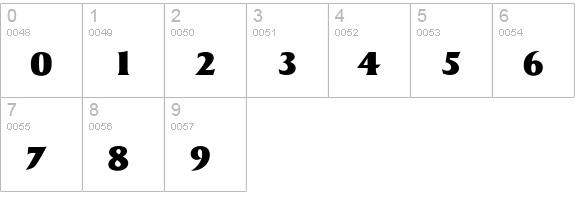
Brusquerie Display SSi Font Details
Brusquerie Display SSi font is a bold and eye-catching typeface that commands attention with its strong and angular letterforms. This font exudes a sense of confidence and modernity, making it perfect for headlines, posters, and branding materials. The sharp edges and unique design of Brusquerie Display SSi add a touch of sophistication to any project. Best of all, Brusquerie Display SSi font is available for free download at FontsMarket.com. This means you can easily add this striking font to your collection without any cost. Whether you're a designer looking to make a statement or a creative looking to spice up your projects, Brusquerie Display SSi font is a versatile and stylish choice that won't break the bank. Download it today and let your creativity shine!